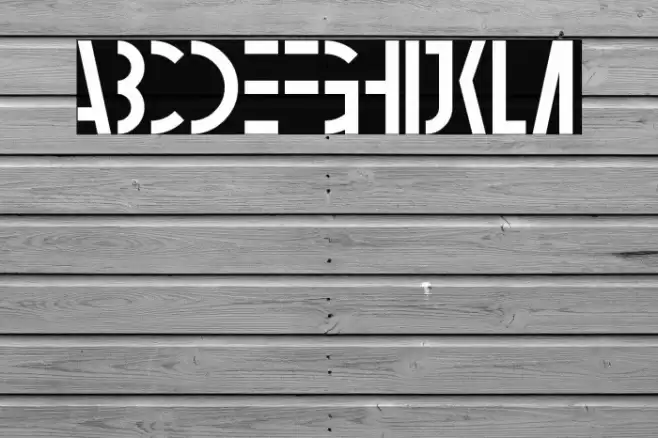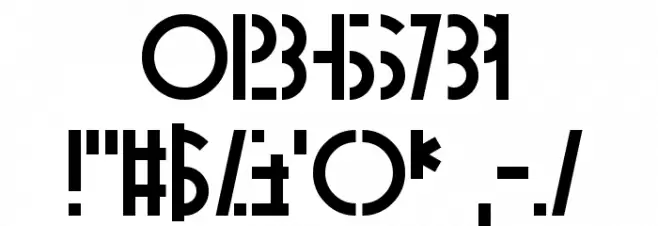
Ambidextrose Font
Ambidextrose Description
This font features a bold and geometric design with a highly stylized appearance. Each character is constructed with thick, angular lines, creating a sense of strength and modernity. The uppercase letters are particularly striking, with sharp edges and a unique, almost futuristic aesthetic. The numbers and special characters follow the same bold and angular style, ensuring consistency across all elements. This font is ideal for making a strong visual impact, with its high contrast and distinctive shapes.
A bold, geometric font with angular lines and a modern, futuristic look from Uncategorized fonts.
- Proposed Projects: Ideal for branding, posters, and headlines where a strong, modern impact is desired.